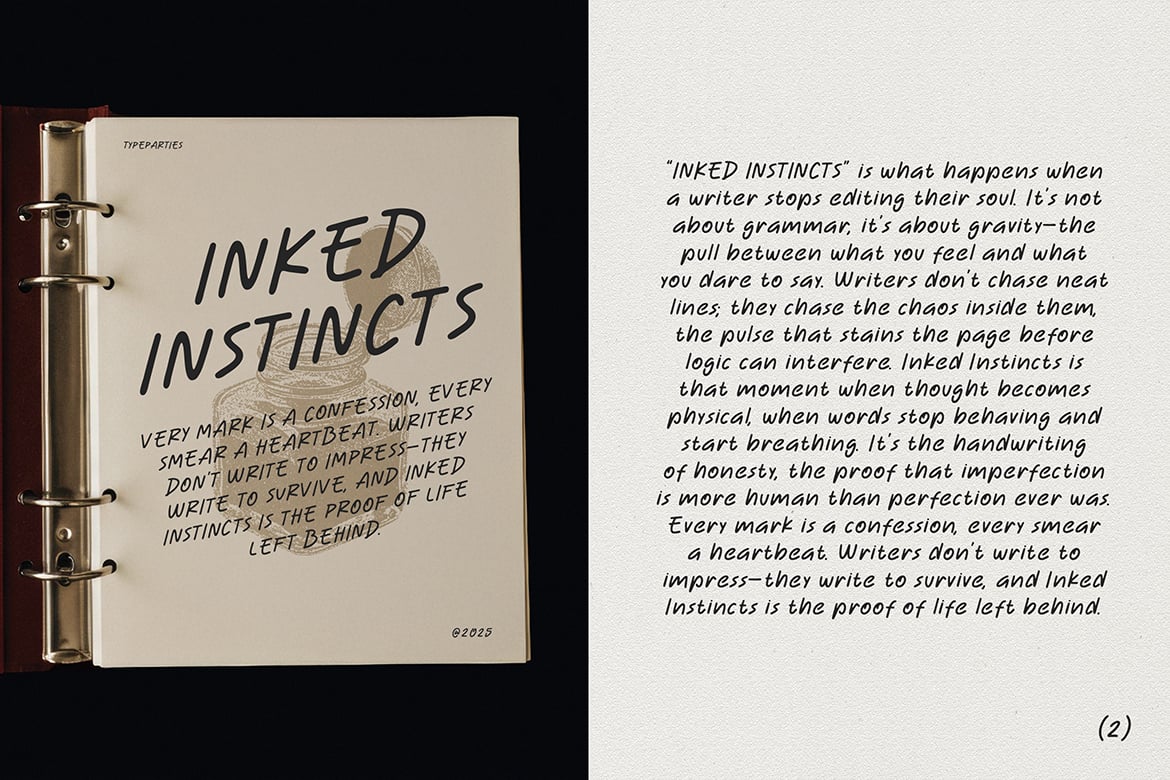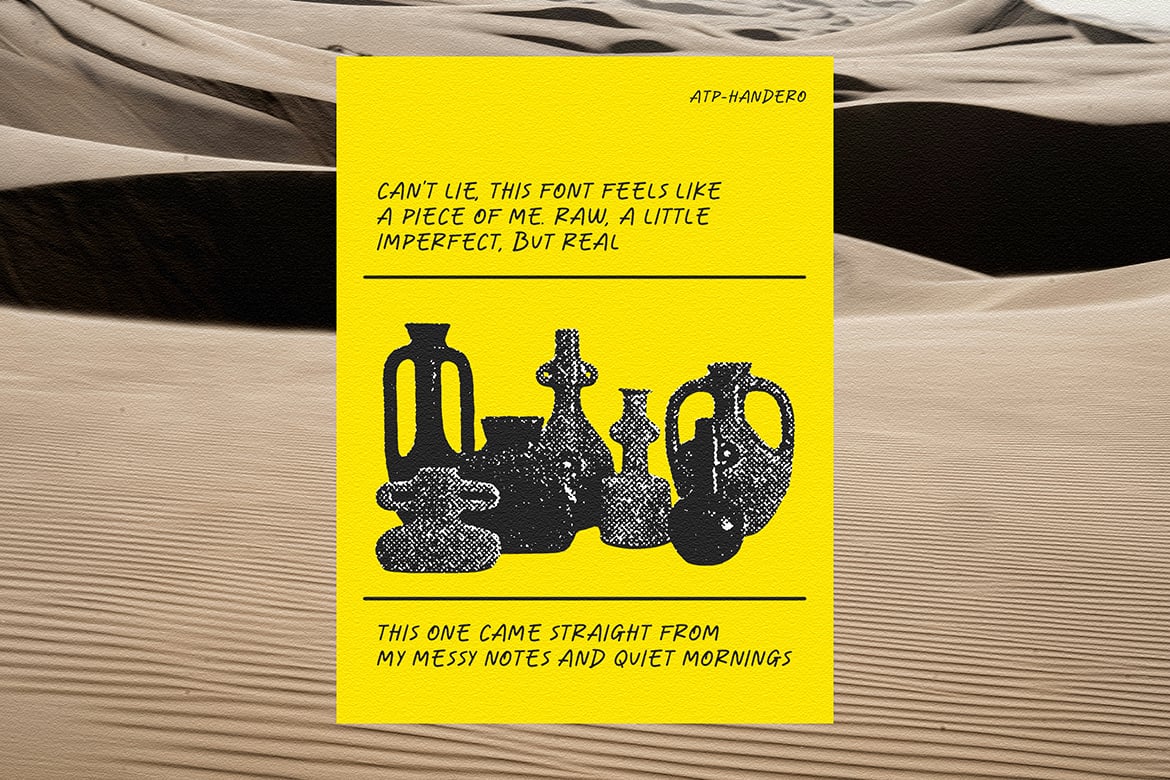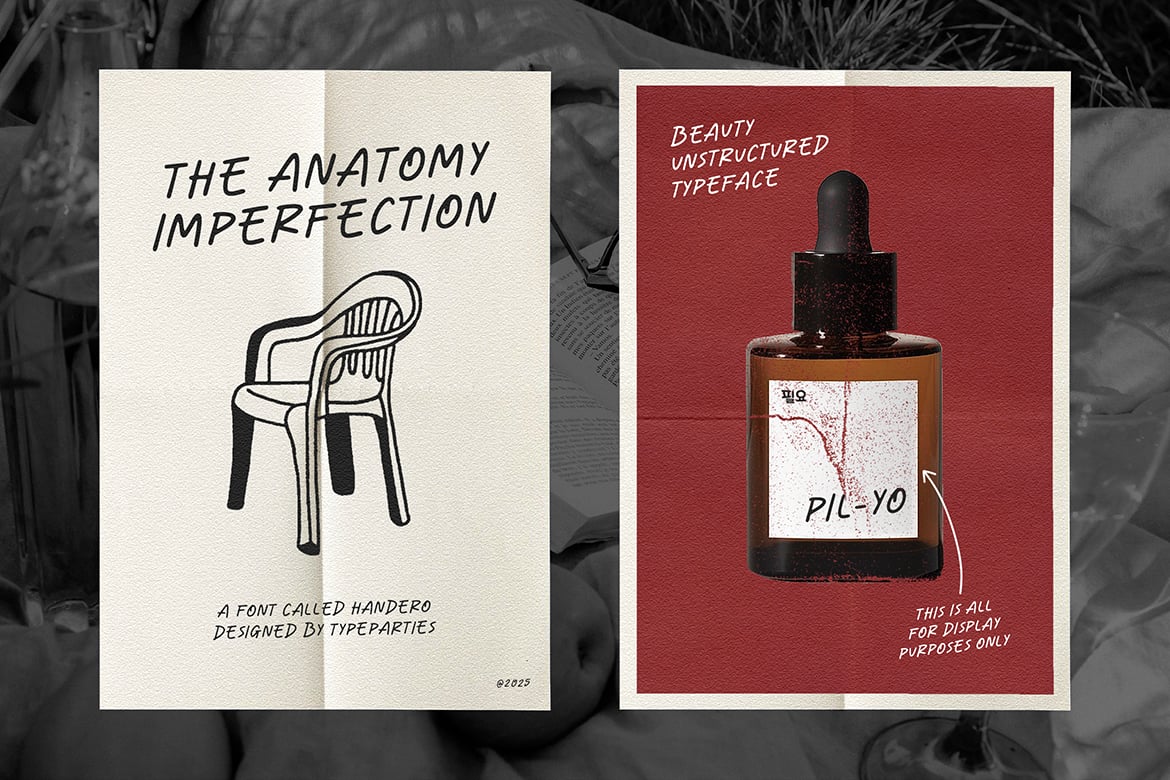
Handero
Handero Font came straight from my messy notes and quiet mornings. It has that raw handwritten rhythm that feels honest and spontaneous. Every stroke carries a bit of that quiet chaos that happens before creativity clicks.
Perfect for personal projects, brand visuals, packaging, or anything that needs a human and expressive touch. Handero makes your design feel warm, natural, and full of character.